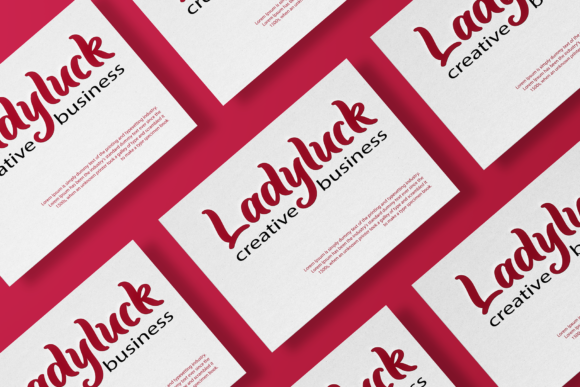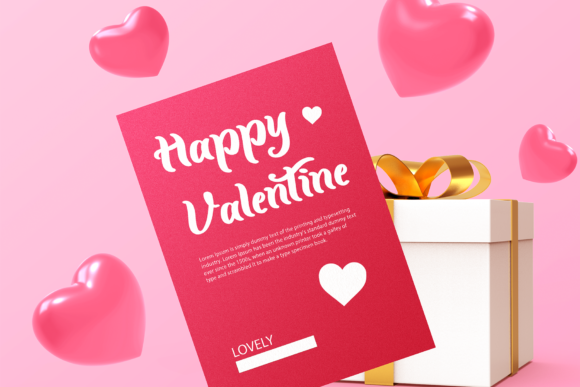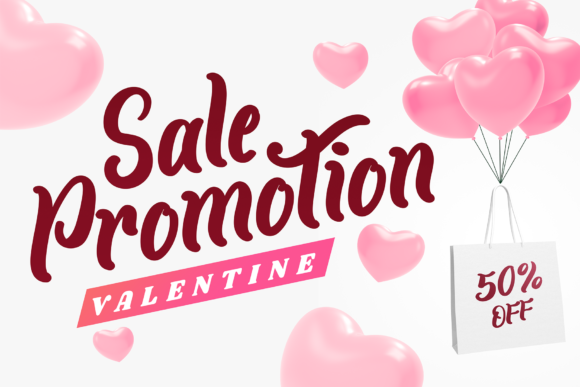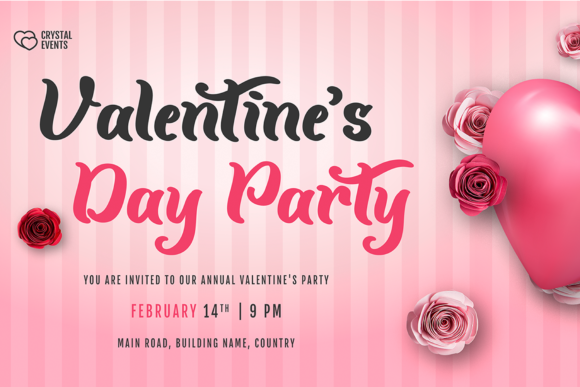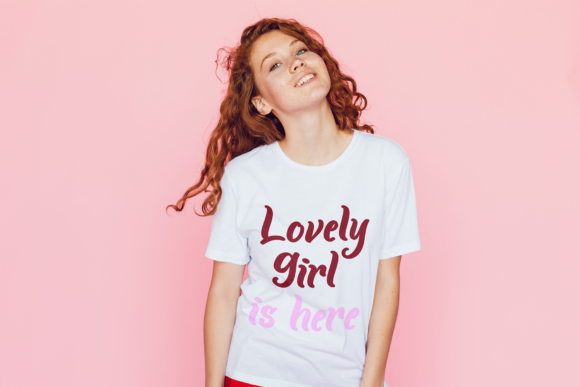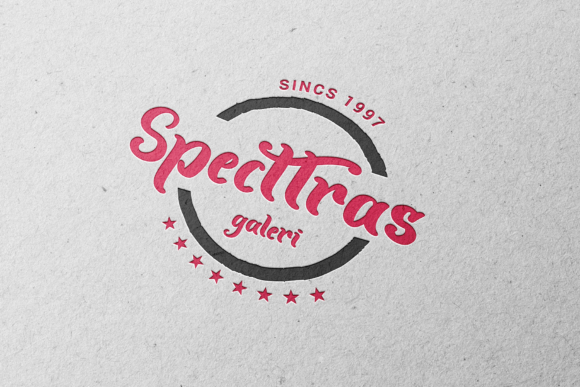
Introduction to Romantic Valentines Font
Romantic Valentines is a beautiful and refined script font.
It has a classy, elegant and modern look that can be used for logos, branding, invitations, stationery, wedding designs, social media posts, and much more .
Romantic Valentines Font offers exceptional quality and versatility, making it a valuable addition to your design toolkit. Whether you’re creating for personal projects or commercial use, Romantic Valentines Font delivers professional results.